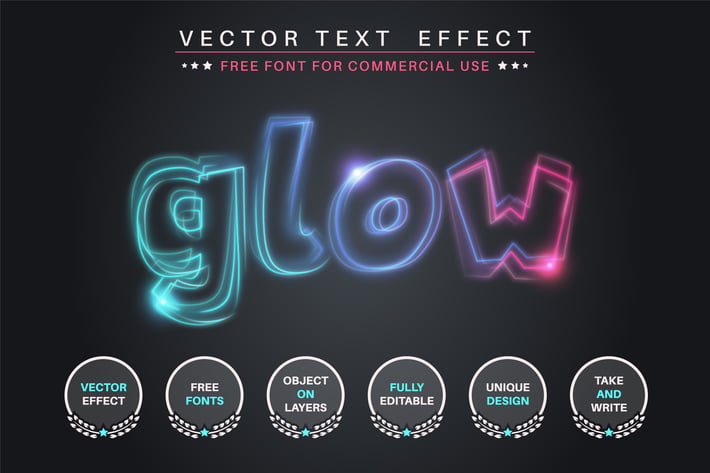
Quivering glow - editable text effect, font style
Hello! I'm happy to introduce my new text effect "Quivering glow". Just write your word and the effect will apply! Be as creative as you like to be in expressing yourself using this unique “Quivering glow”. Effect is perfect for any project that needs a unique handy touch whatever else your imagination leads you to!